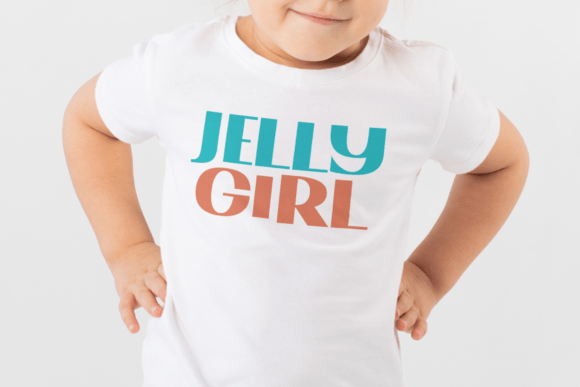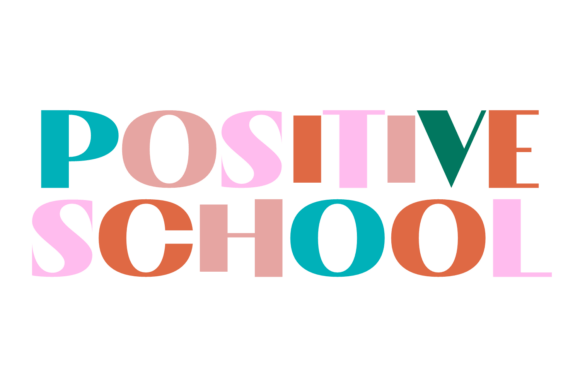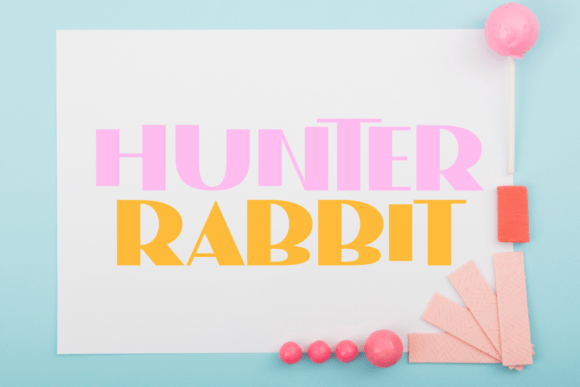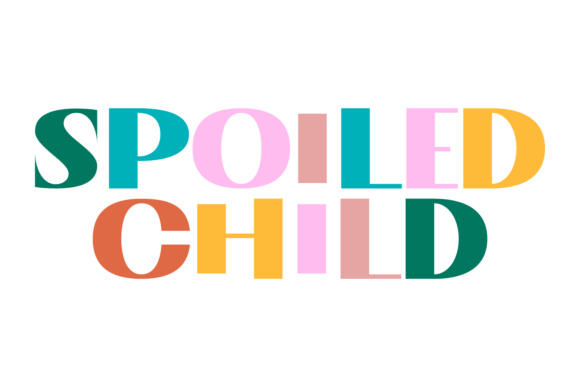
Discover the Enchanting Charm of Gray Club Fonts
Are you on the hunt for a font that embodies the perfect blend of minimalism and whimsy? Look no further than Gray Club Fonts, a delightful and cute font that is sure to make an irresistibly charming addition to any planner, design, or craft project. This enchanting font is designed to capture the essence of childhood, making it a perfect choice for designers and crafters who want to spark joy in kids and babies alike.
The Essence of Minimalism with a Touch of Whimsy
Gray Club Fonts masterfully marries the simplicity of minimalism with a touch of crafty nuances, giving birth to a simple yet captivating font. The design boasts bold contours that carve a striking silhouette, making it an ideal pick for a variety of applications, from T-shirt designs to festive Christmas SVGs. The font’s quirky vibe is paired with cutting-friendly characteristics, delivering smooth, sweet results with Cricut display font compatibility.
A Font that Captures the Spirit of Childhood
Speckled with splashes of love and faith, Gray Club Fonts truly captures the spirit of childhood. The font’s playful and charming nature makes it perfect for use in children’s materials, such as educational resources, activity sheets, and creative projects. Whether you’re a designer creating materials for kids or a crafter making personalized gifts, Gray Club Fonts is sure to bring a smile to the faces of young and old alike.
Gray Club Fonts is an incredibly versatile font that can be used in a wide range of applications. From crafting motivational quotes to sparking creativity in children’s material, this font is the perfect voice for your creations. Here are just a few ideas to get you started:
- T-shirt designs: The font’s bold contours and quirky vibe make it perfect for creating eye-catching designs for kids and adults alike.
- Girly unicorn invocations: Add a touch of magic to your designs with Gray Club Fonts, perfect for creating whimsical and fantastical artwork.
- Festive Christmas SVGs: Get into the holiday spirit with Gray Club Fonts, ideal for creating festive and fun designs for Christmas cards, decorations, and gifts.
- Spring cards and autumn fall thanksgiving sublimations: The font’s charming nature makes it perfect for creating seasonal designs that capture the essence of each holiday.
Why Choose Gray Club Fonts?
So why choose Gray Club Fonts over other fonts on the market? Here are just a few reasons why designers and crafters love this enchanting font:
- Unique and eye-catching design: Gray Club Fonts boasts a bold and quirky design that is sure to stand out in any design or craft project.
- Cricut display font compatibility: The font’s cutting-friendly characteristics make it perfect for use with Cricut machines, delivering smooth and sweet results.
- Perfect for kids and babies: Gray Club Fonts captures the spirit of childhood, making it a perfect choice for designers and crafters who want to create materials for young children.
- Versatile and adaptable: The font can be used in a wide range of applications, from T-shirt designs to festive Christmas SVGs.
Get Creative with Gray Club Fonts